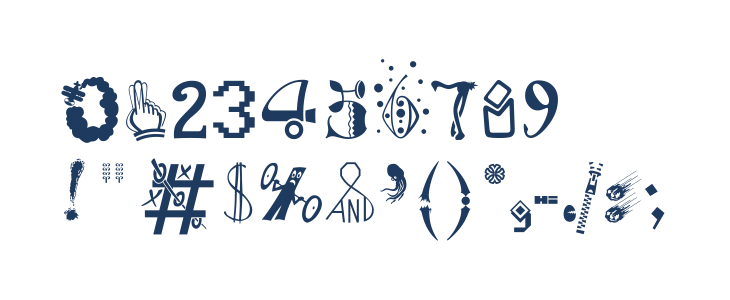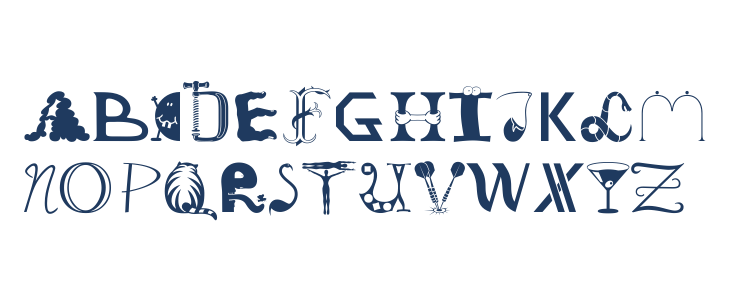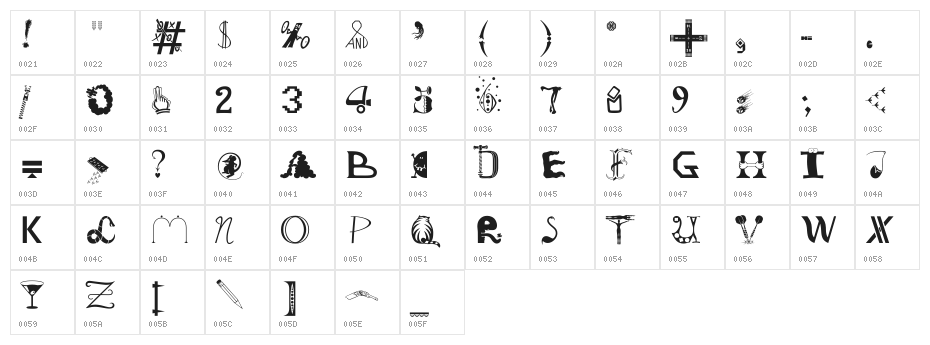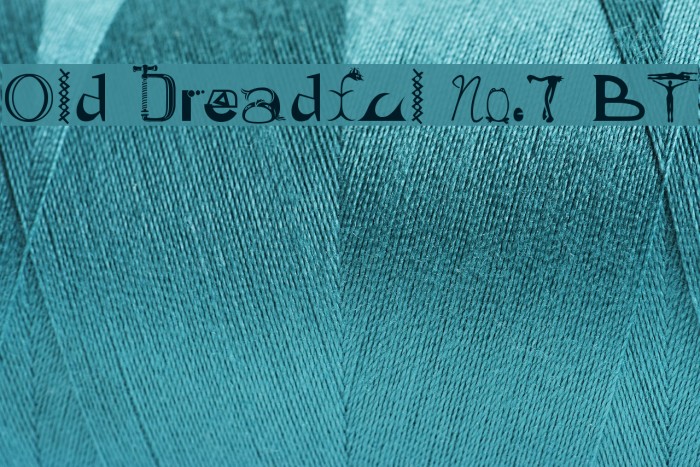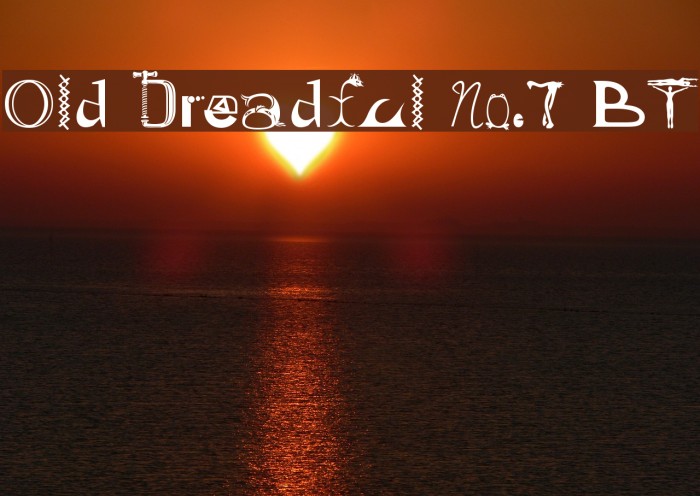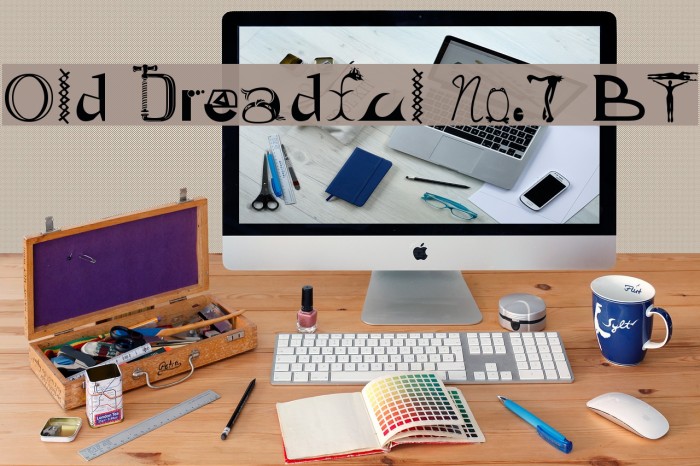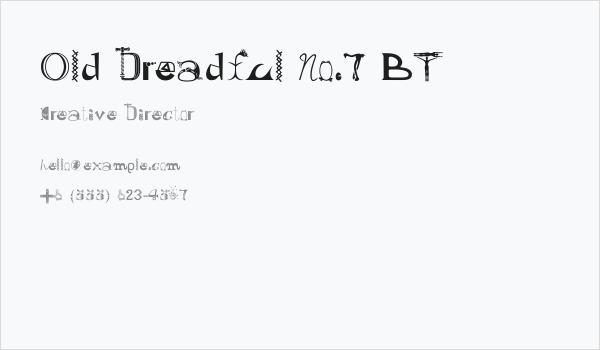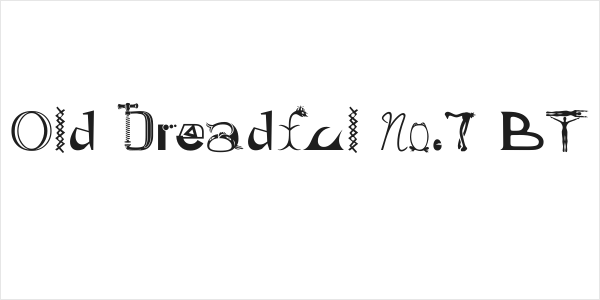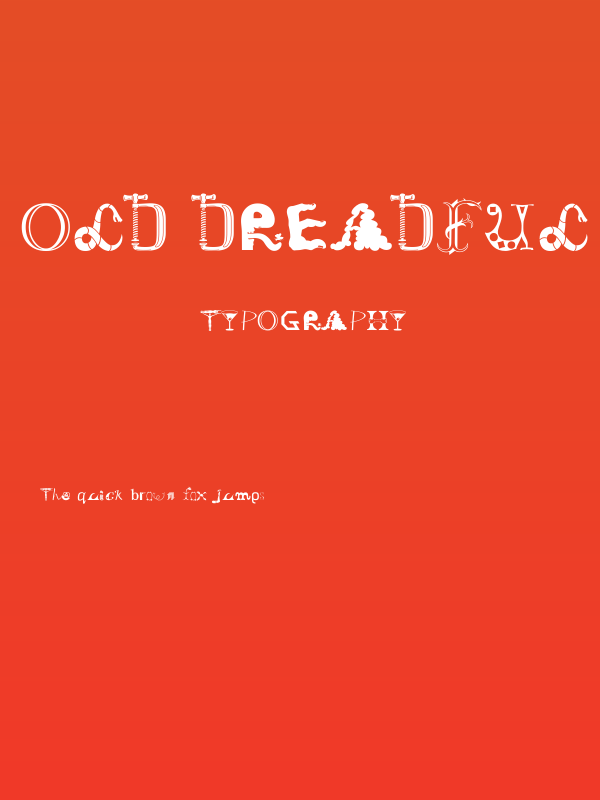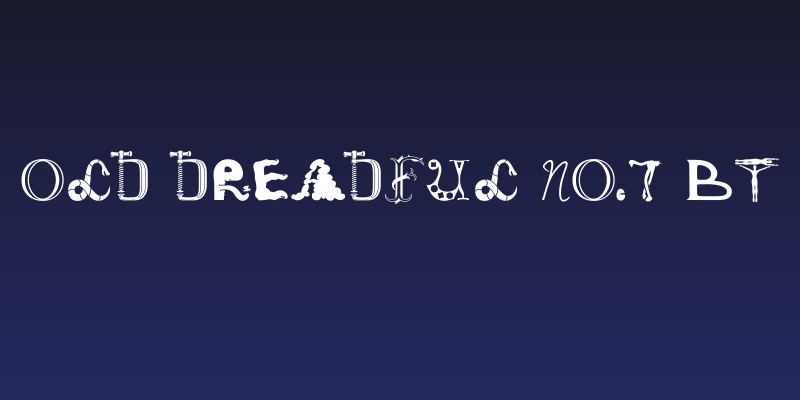
Old Dreadful No.7 BT Font
Old Dreadful No.7 BT Description
This font is a highly decorative and eclectic typeface, featuring a diverse range of artistic elements within each character. Each letter and number is uniquely designed with intricate details, incorporating various motifs such as swirls, geometric shapes, and abstract forms. The font exhibits a playful and whimsical style, with some characters resembling organic forms or mechanical parts. The special characters continue this theme, offering a variety of imaginative and unconventional designs. This typeface is visually striking and captures attention with its bold and creative presentation.